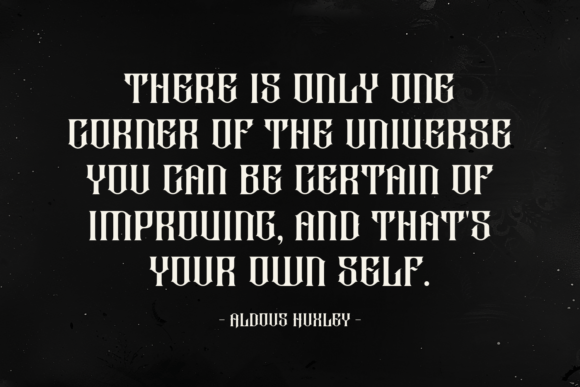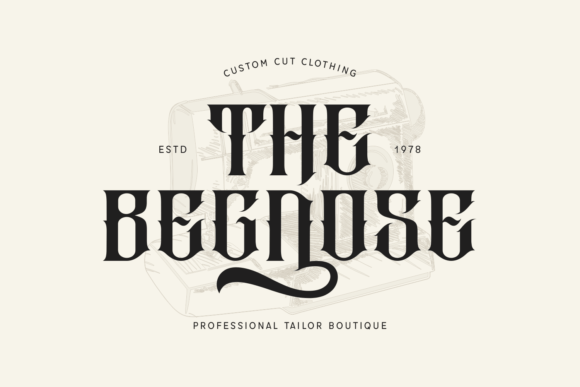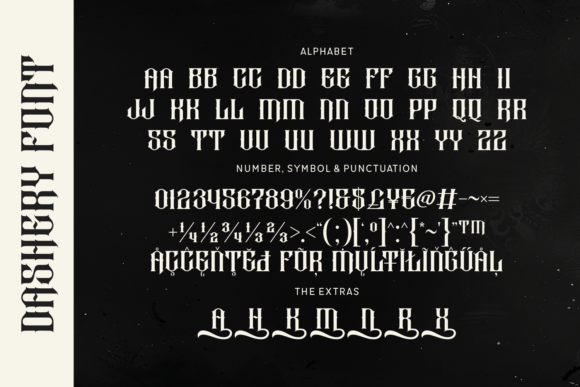
The Dashery Font: A Modern Blackletter Masterpiece
I still remember the design project that led me to discover the Dashery font. I was working on a poster for a medieval-themed event, and I was struggling to find a font that was both bold and readable. That’s when I stumbled upon Dashery, a modern blackletter typeface that instantly caught my attention. Its unique blend of ornamentation and legibility made it the perfect fit for my project, and I’ve been hooked ever since.
- ✨ Unique and eye-catching design: Dashery’s modern blackletter style sets it apart from more traditional fonts.
- ✅ Excellent readability: Despite its bold and decorative nature, Dashery remains surprisingly readable, even at smaller font sizes.
- ✅ Versatile: This font can be used for a wide range of applications, from posters and branding to body text in select cases.
While Dashery is an excellent font, it’s not without its quirks. For example:
- ⚠️ Limited use in body text: While Dashery is readable, it’s still a bold and decorative font, making it less suitable for long blocks of body text.
- 🤔 Some glyphs may require adjustment: Depending on the context, some glyphs (such as the ampersand or dollar sign) may require manual adjustment to fit perfectly with the rest of the text.
The Designer Inspiration Behind Dashery
According to its creators, Dashery was inspired by the ornate blackletter fonts of the Middle Ages, combined with a modern and minimalist approach. The goal was to create a font that was both bold and readable, perfect for a wide range of design applications.
Q: Is Dashery suitable for body text?
A: While Dashery is surprisingly readable, it’s still a bold and decorative font, making it less suitable for long blocks of body text. However, it can be used for short paragraphs or headings.